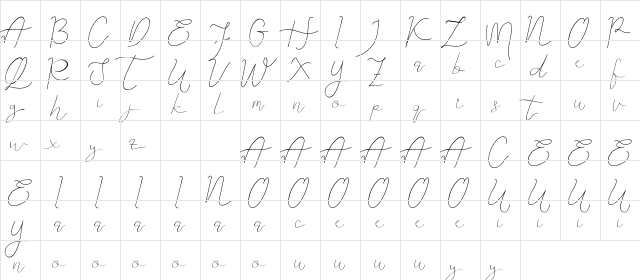
Arsya Edelwiess Demo Script Regular
| Foundry | Edric Studio |
| Designer | Saila nurissalma |
Design Context for Arsya Edelwiess Demo Script Typeface
Arsya Edelwiess Demo Script flows with the natural rhythm of handwritten lettering, making it ideal for designs that call for warmth and personal expression.
Font Pairing: Combine Arsya Edelwiess Demo Script with a simple geometric sans for maximum contrast — the tension between flowing curves and clean structure is a classic typographic pairing.
Pro Tip: Use Arsya Edelwiess Demo Script for short runs of text — names, titles, or taglines. Extended body copy in script faces tires the eye quickly.